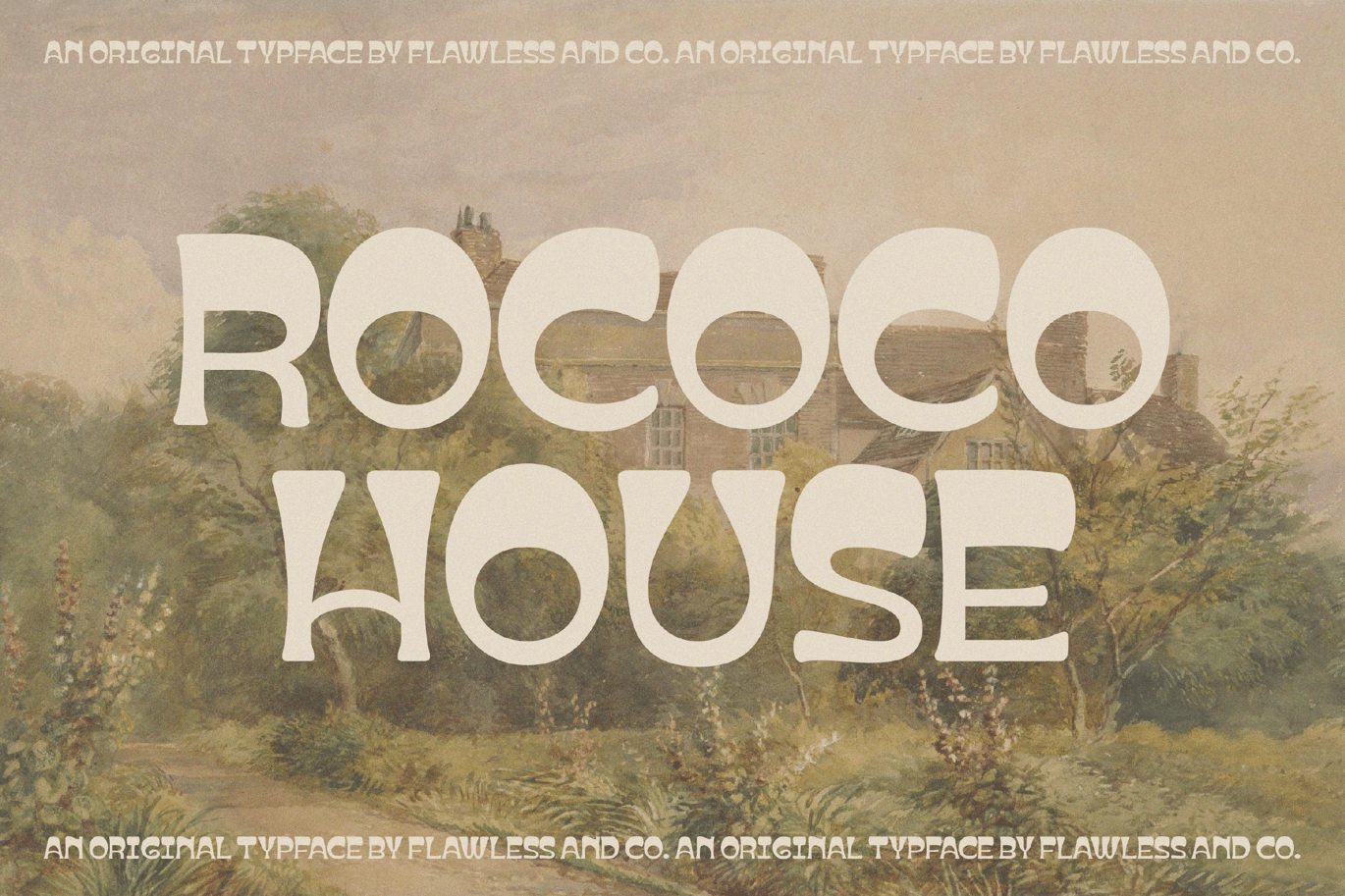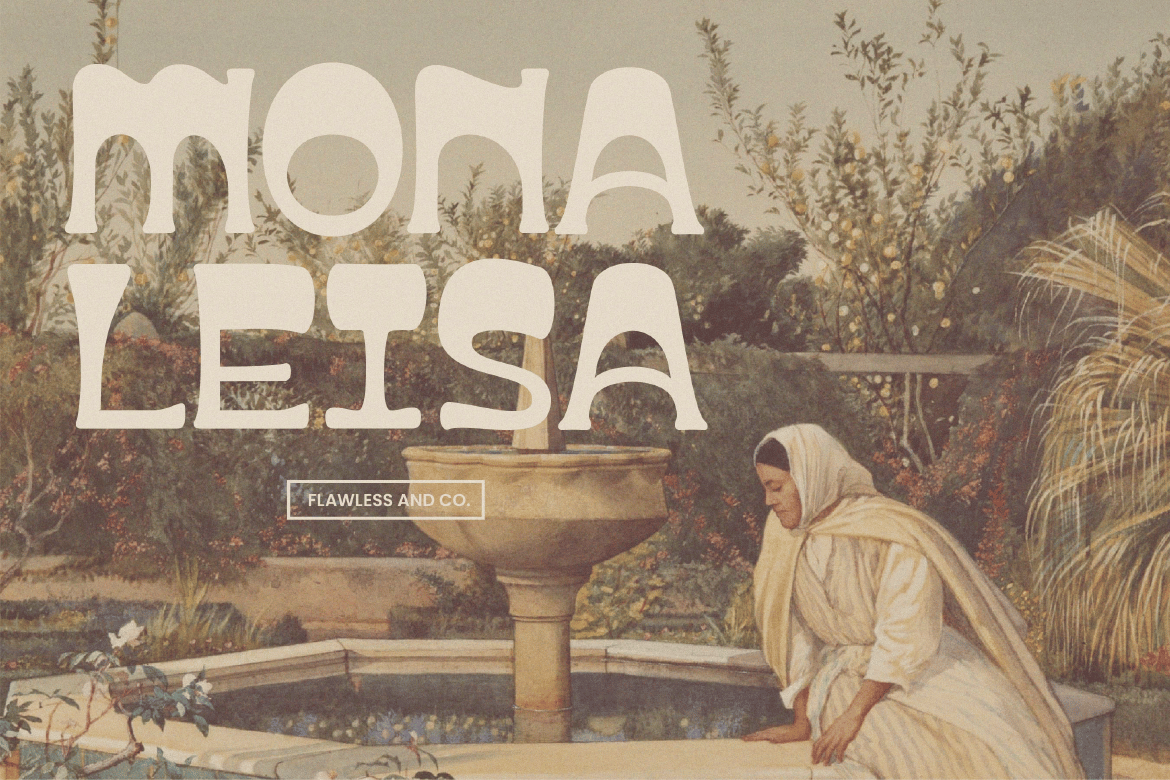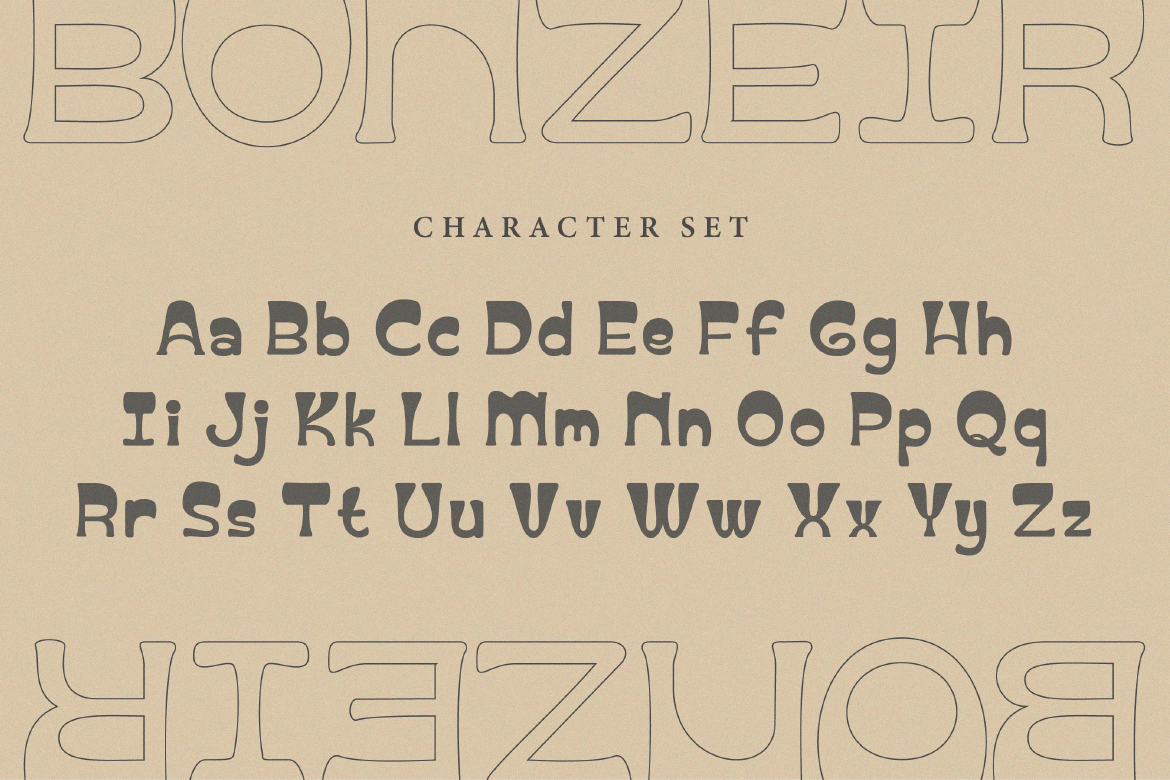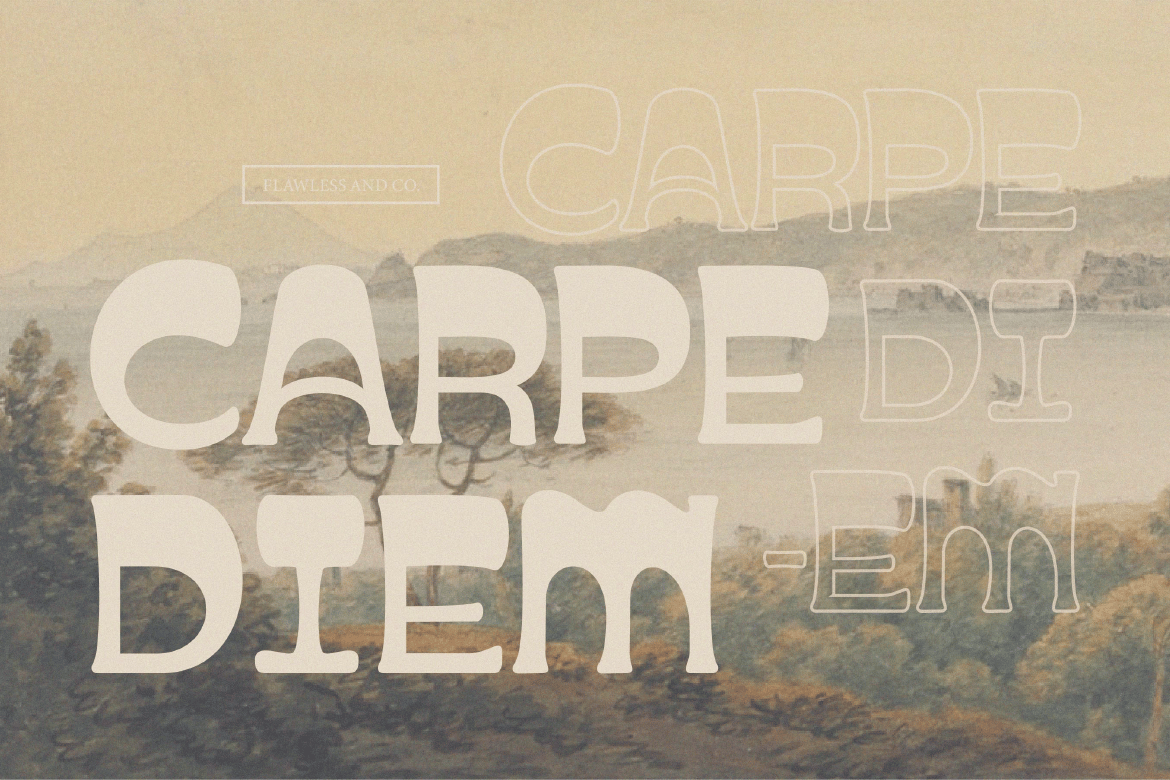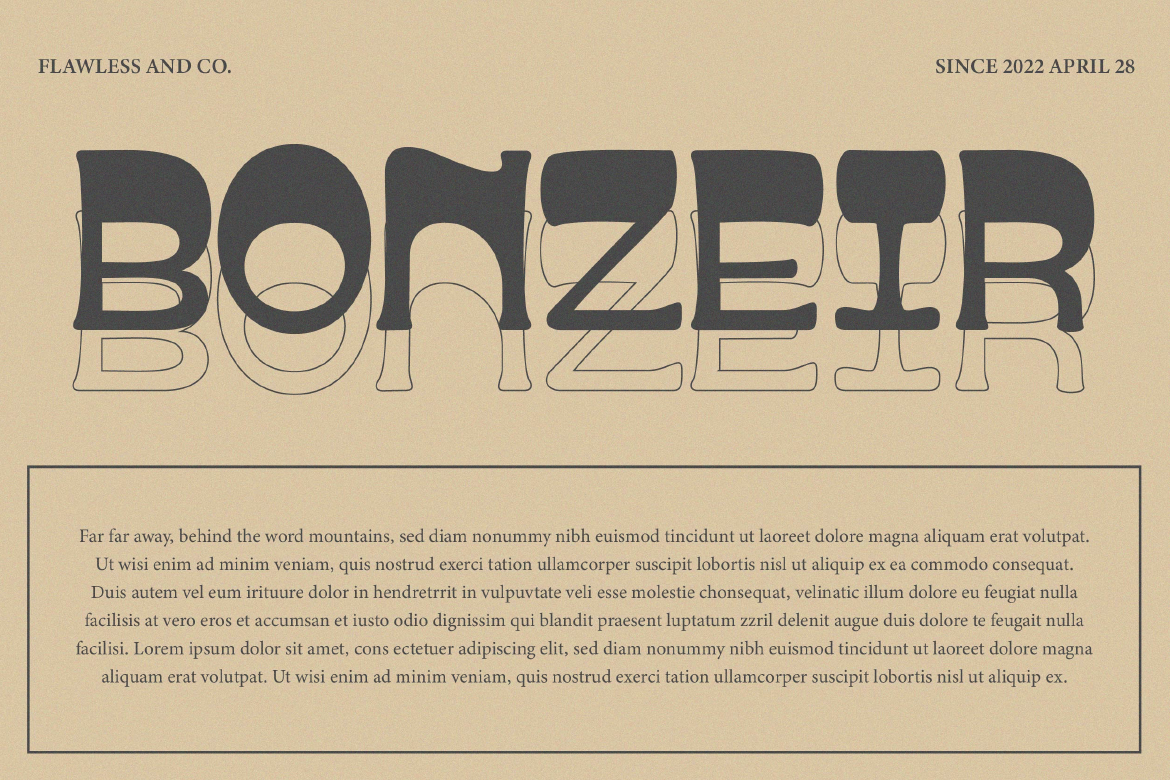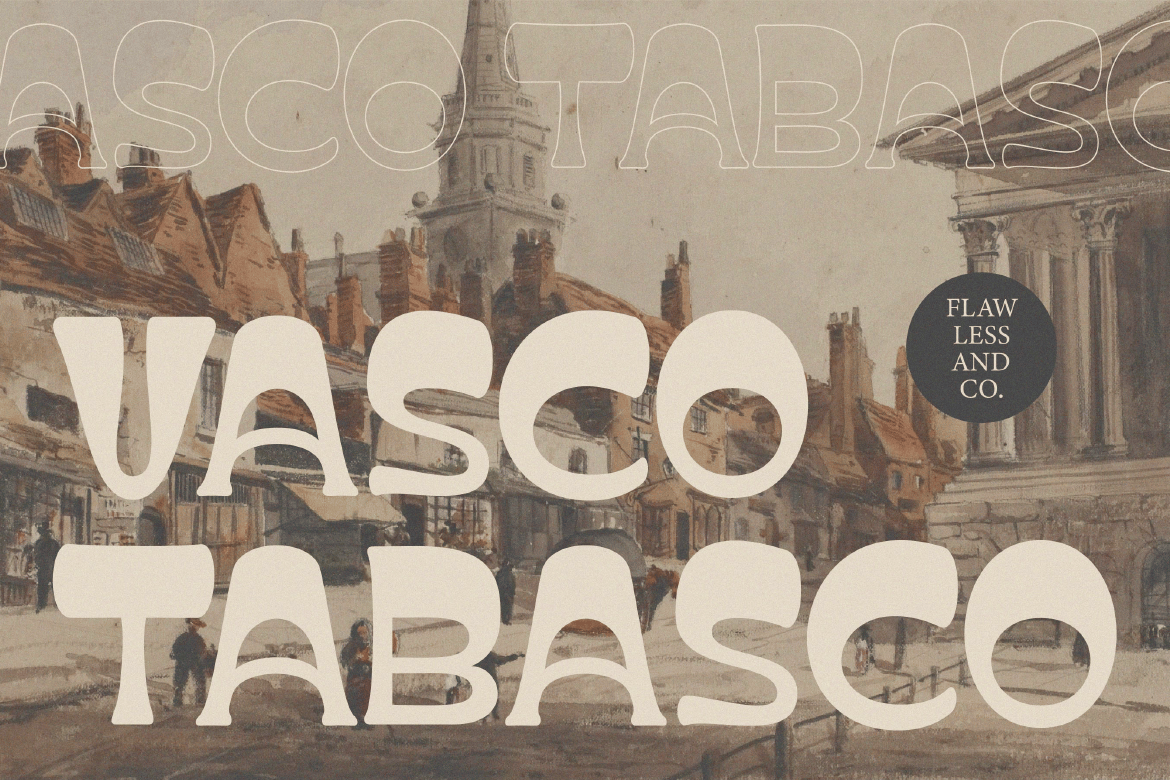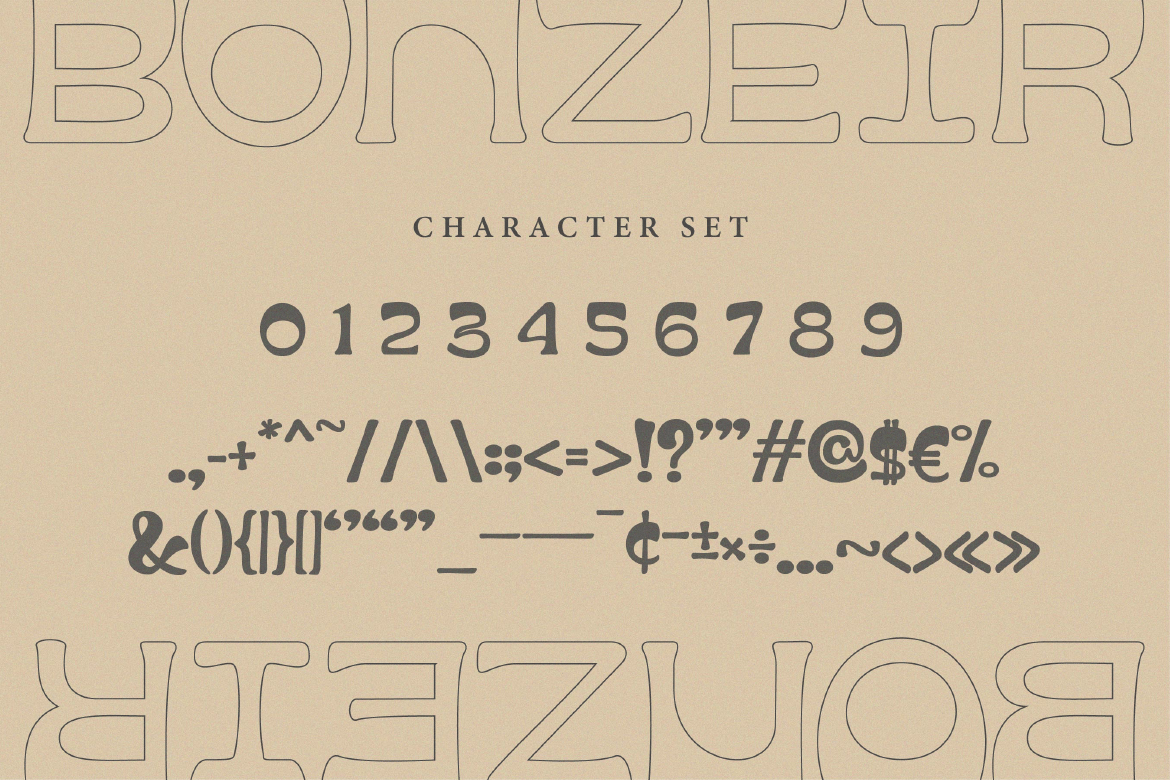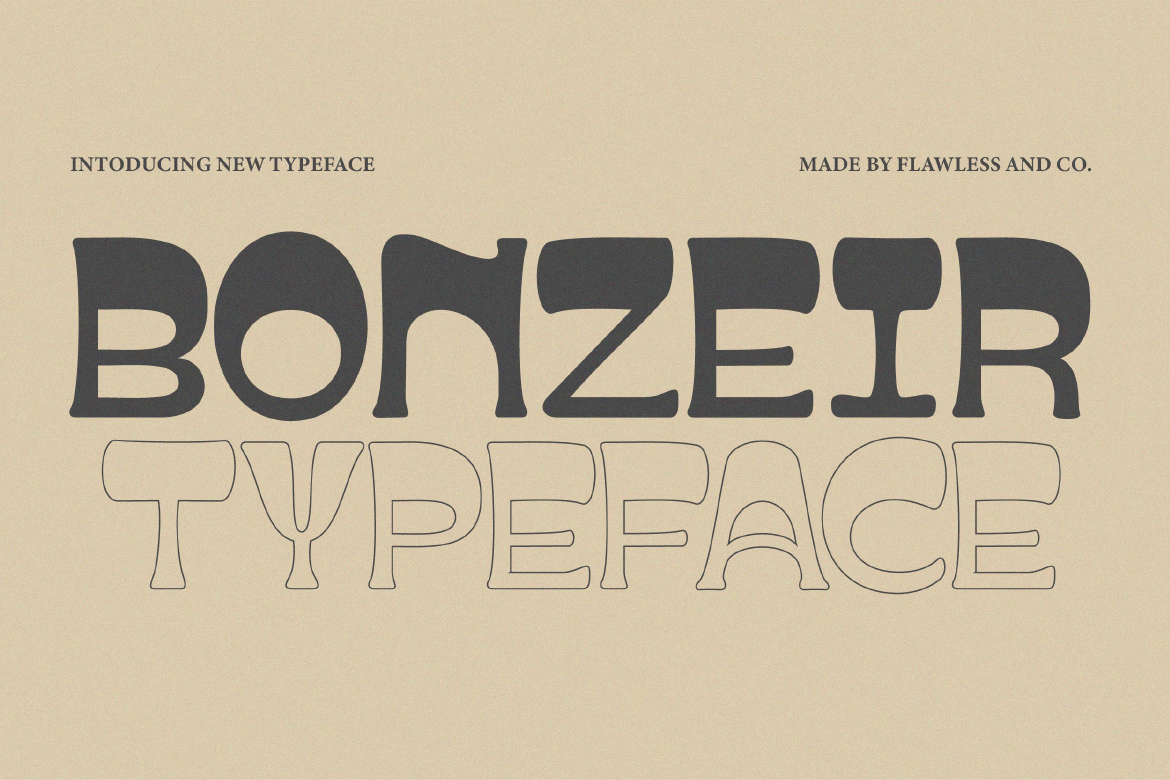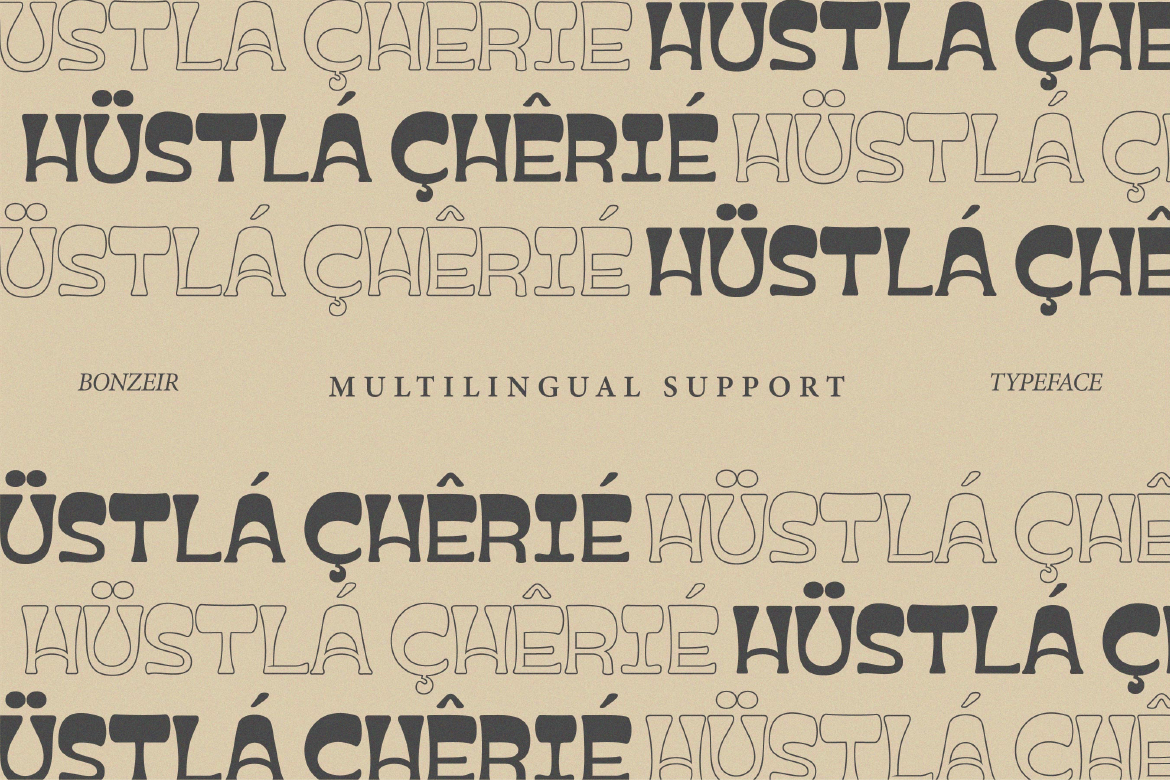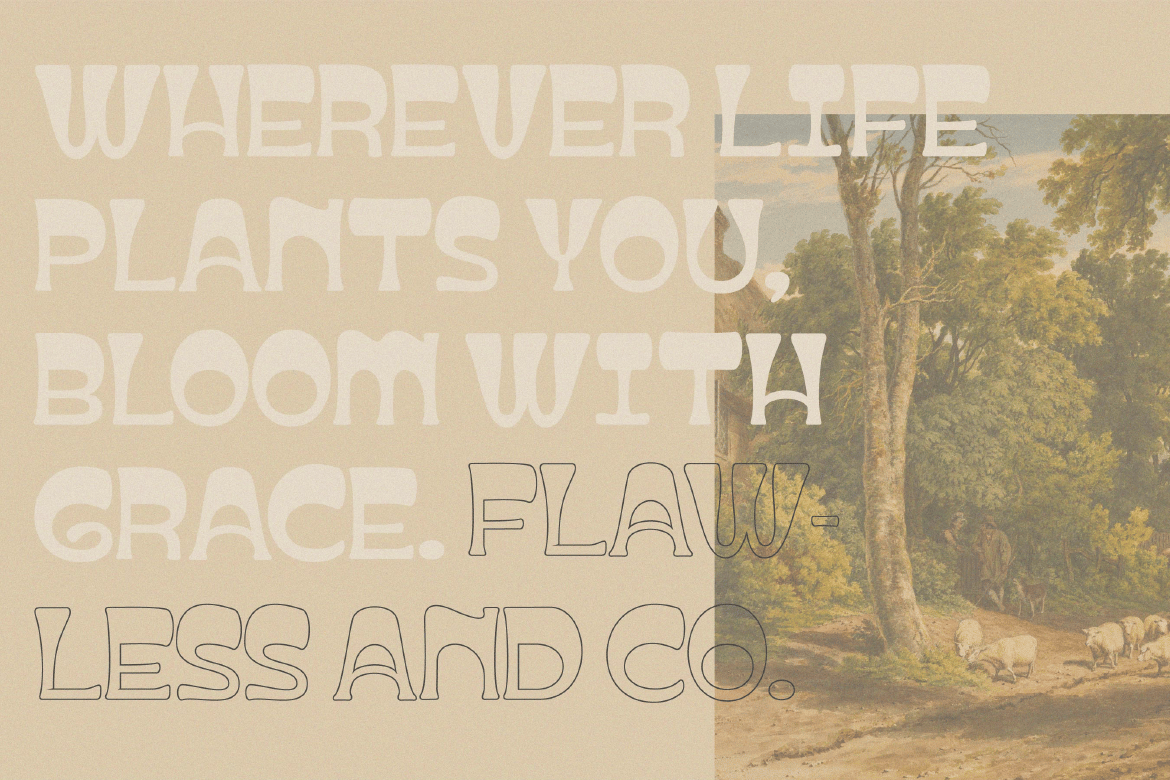
Bonzeir – Retro Font
Introducing our new “Bonzeir” Modern Retro with Fun and Elegant Style is perfect for branding, logos, invitation, master heads, and more.
Alternate Character